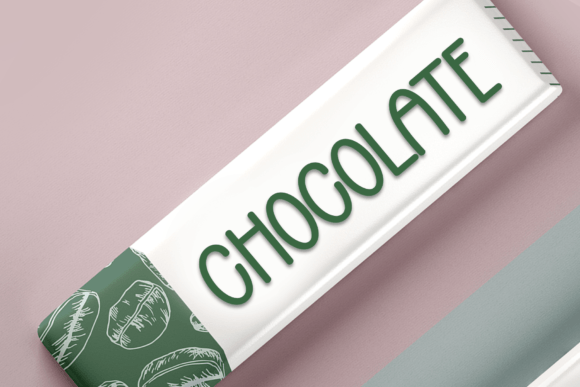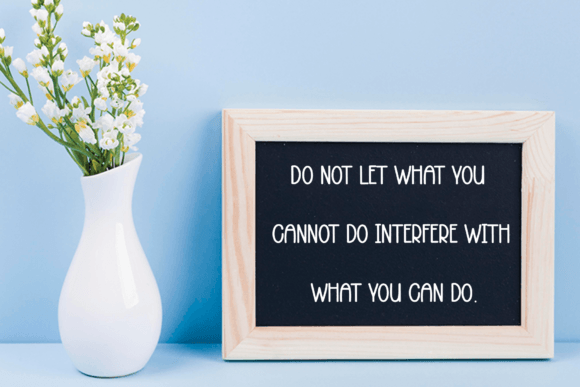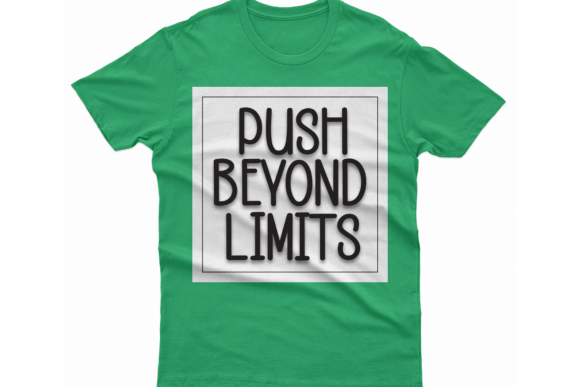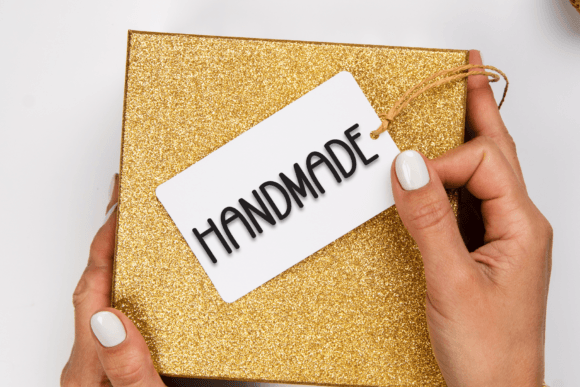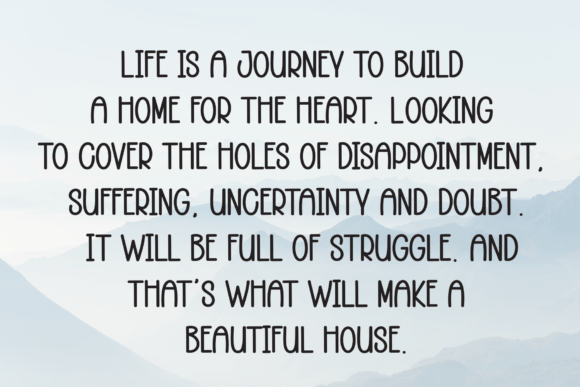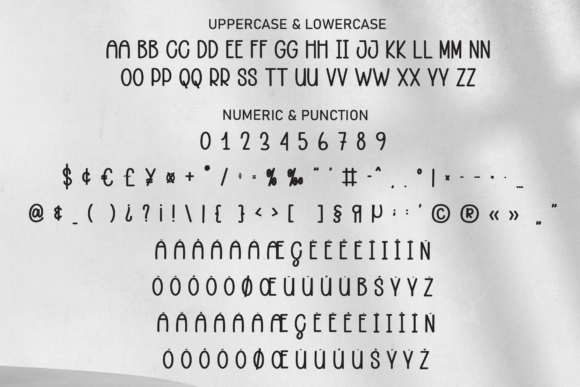
Discover the Delightful World of Stargazer: A Handwritten Display Font
In the realm of typography, few fonts manage to strike a perfect balance between sweetness and friendliness. However, Stargazer, a delightful and personable handwritten display font, achieves just that. With its charming and lively style, Stargazer is an excellent choice for designers and crafters looking to add a playful touch to their creations.
The Perfect Font for Heartfelt Creations
Stargazer is a versatile font that shines in various design applications, particularly in projects that require a personal and warm touch. Whether you’re crafting heartfelt wedding invitations, expressive cards, or any creative design that needs a dash of personality, Stargazer is the perfect companion. Its unique nuances infuse a sense of joy and fun into your work, making it an ideal choice for designers and crafters who want to create memorable and impactful pieces.
What Makes Stargazer Special?
So, what sets Stargazer apart from other fonts? Here are a few key characteristics that make this font a standout:
- Charming and lively style: Stargazer’s handwritten style is full of life and energy, making it perfect for designs that require a playful touch.
- Perfect balance of sweetness and friendliness: This font strikes the ideal balance between being sweet and friendly, making it suitable for a wide range of design applications.
- Nuances that infuse joy and fun: Stargazer’s unique nuances add a dash of exuberance to your creations, making them more engaging and memorable.
Using Stargazer in Your Designs
Stargazer is an incredibly versatile font that can be used in various design projects, including:
- Wedding invitations: Add a personal touch to your wedding invitations with Stargazer’s charming and lively style.
- Cards and stationery: Create expressive cards and stationery that showcase your personality and style.
- Creative designs: Use Stargazer to add a playful touch to your creative designs, such as posters, flyers, and brochures.
Tips for Working with Stargazer
To get the most out of Stargazer, here are a few tips to keep in mind:
- Experiment with font sizes: Stargazer looks great in various font sizes, so don’t be afraid to experiment and find the perfect size for your design.
- Pair with complementary fonts: Pair Stargazer with complementary fonts to create a unique and visually appealing design.
- Play with colors and textures: Add an extra layer of depth to your design by playing with colors and textures.
In conclusion, Stargazer is a delightful and personable handwritten display font that captures a perfect balance of sweetness and friendliness. With its charming and lively style, this font is a perfect choice for designers and crafters looking to add a playful touch to their creations. Whether you’re crafting heartfelt wedding invitations, expressive cards, or any creative design that requires a playful touch, Stargazer is the perfect companion. So why not give Stargazer a try and see how it can elevate your designs to the next level?